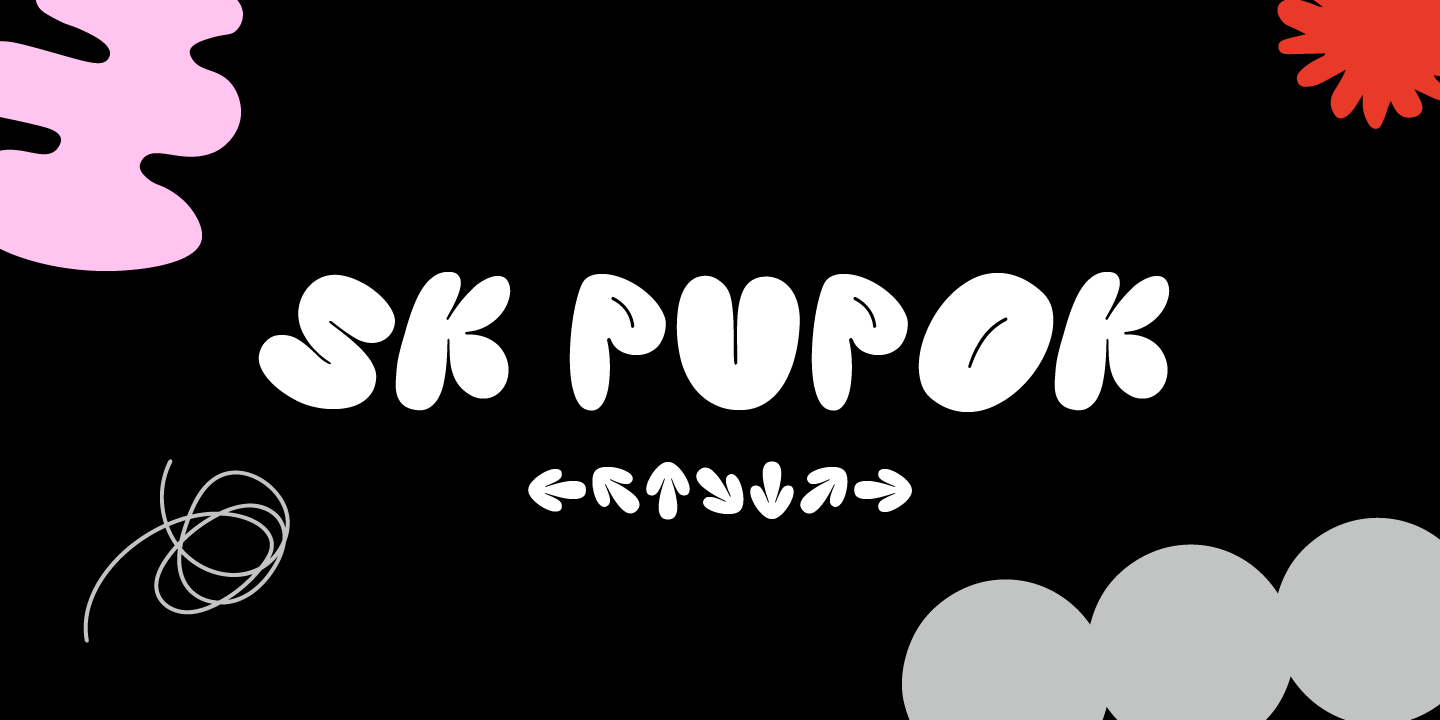
SK Pupok Font Free Download is a playful and bold typeface that’s perfect for designers who want to bring a soft, fun, and quirky vibe to their projects. With its rounded shapes and bouncy curves, this font feels friendly and approachable while still maintaining a sense of balance and structure.
Originally designed to add personality and charm to headlines, SK Pupok is ideal for children’s books, packaging, posters, branding, and anything that needs a touch of whimsy. It’s the kind of font that doesn’t just speak—it smiles.
The versatility of SK Pupok Font Free Download makes it a great addition to any creative toolkit. It’s easy to use, highly legible at various sizes, and compatible with all major design platforms, including Adobe Illustrator, Photoshop, and more. The font’s unique geometry makes it stand out while still being surprisingly readable, even in smaller text settings.
Whether you're working on a colorful UI design or a cheerful product label, SK Pupok brings warmth and uniqueness to the table. Just keep in mind that while you can download and test it for free, any commercial usage requires you to obtain a proper license. It’s a small step that goes a long way in supporting creative work.